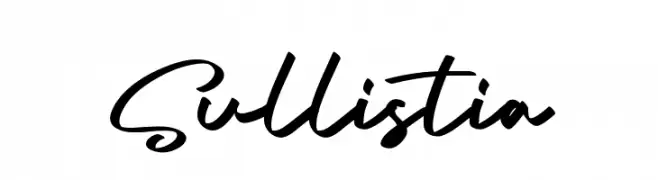
An elegant, cursive font with intricate swirls and a handwritten style.
A flowing, cursive font with a handwritten style and elegant loops.
A whimsical and elegant cursive script font with flowing, graceful lines.
A bold, cursive font with elegant swashes and flowing letterforms.
An elegant, high-contrast script font with decorative swashes and bold strokes.
A dynamic, expressive handwritten font with bold strokes and a personal touch.
A modern, elegant handwritten font with fluid, cursive letterforms.
An elegant and artistic script font with fluid, dynamic strokes.
A dynamic, brush-style font with expressive, fluid strokes.
A whimsical, cursive-like font with artistic flair and elegance.